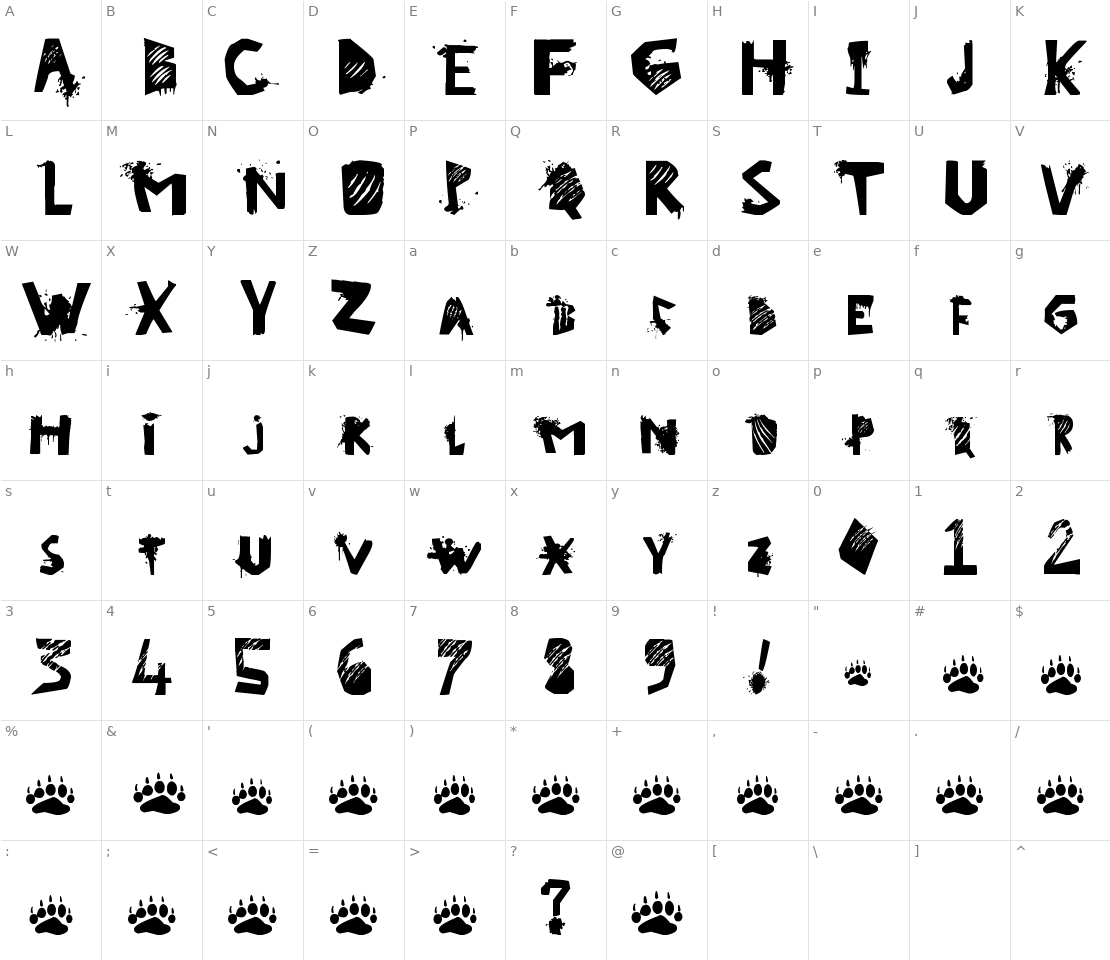
Go Wild
by Mahdi Salah
Go Wild is a bold, heavily textured display face by Mahdi Salah with rough, scratched letterforms that look like they've been clawed into existence. The grunge treatment is aggressive and uneven, giving each character a raw, untamed quality that feels more physical than digital. Built for headlines, posters, and anything that needs to hit with real grit and zero refinement.